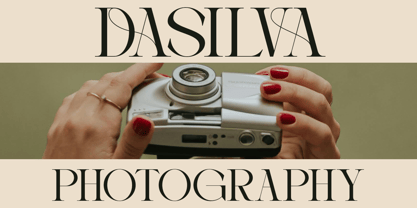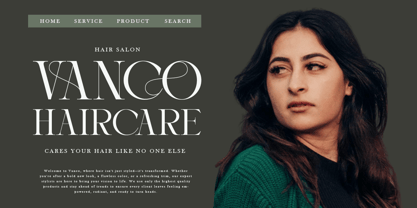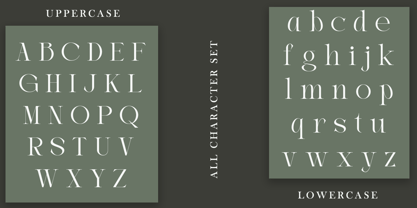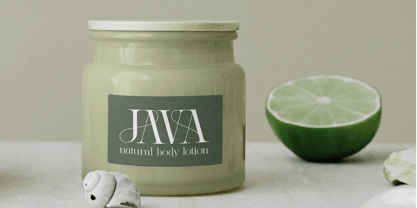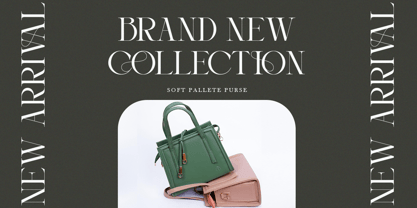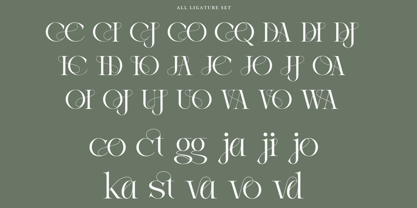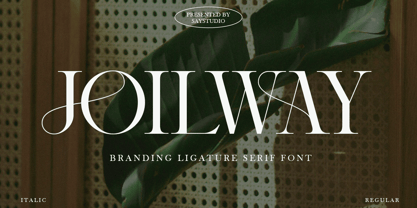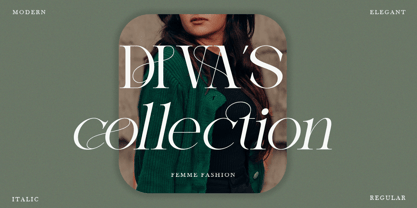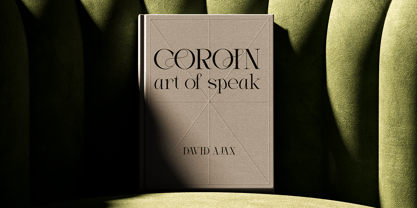
Joilway
by Say Studio
The Joilway Font Family was designed by Mussyayin and published by Say Studio. Joilway contains 2 styles and family package options. More about this family
Introducing Joilway, an elegant serif ligature font Available in Italic and Regular styles, Joilway is perfect for luxury branding, editorial designs, invitations, and high-end typography projects. With its refined ligatures and sophisticated character set, this font enhances any design with a premium, professional look.